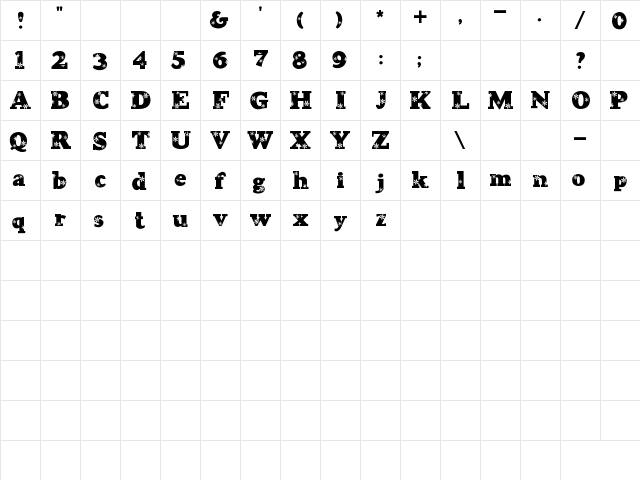
2Peas Winter Essential 2Peas Winter Essential Font Preview
2Peas Winter Essential 2Peas Winter Essential
2Peas Winter Essential 2Peas Winter Essential Font Details
| Style | 2Peas Winter Essential |
| Foundry | High-Logic |
| Designer | High-Logic - Erwin Denissen 1999 |
Design Context for 2Peas Winter Essential Typeface
2Peas Winter Essential is a composed and adaptable typeface that performs quietly and consistently across a wide range of design contexts.